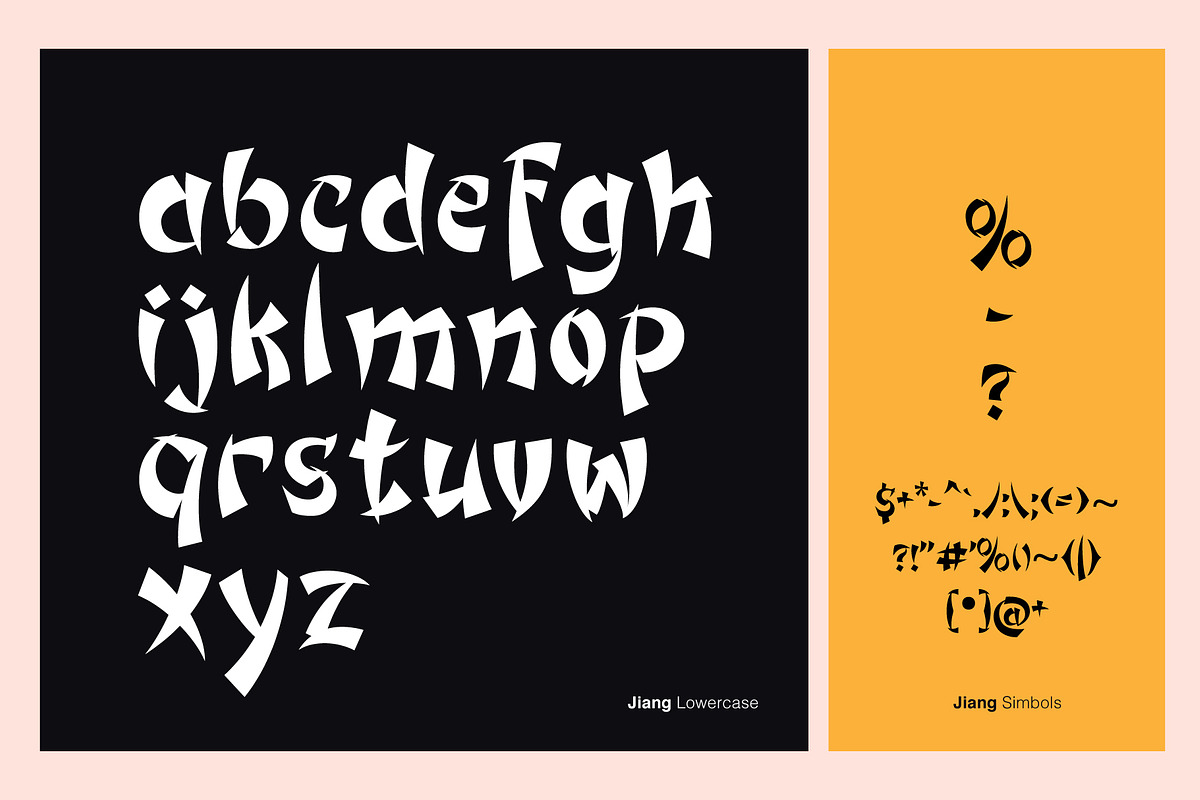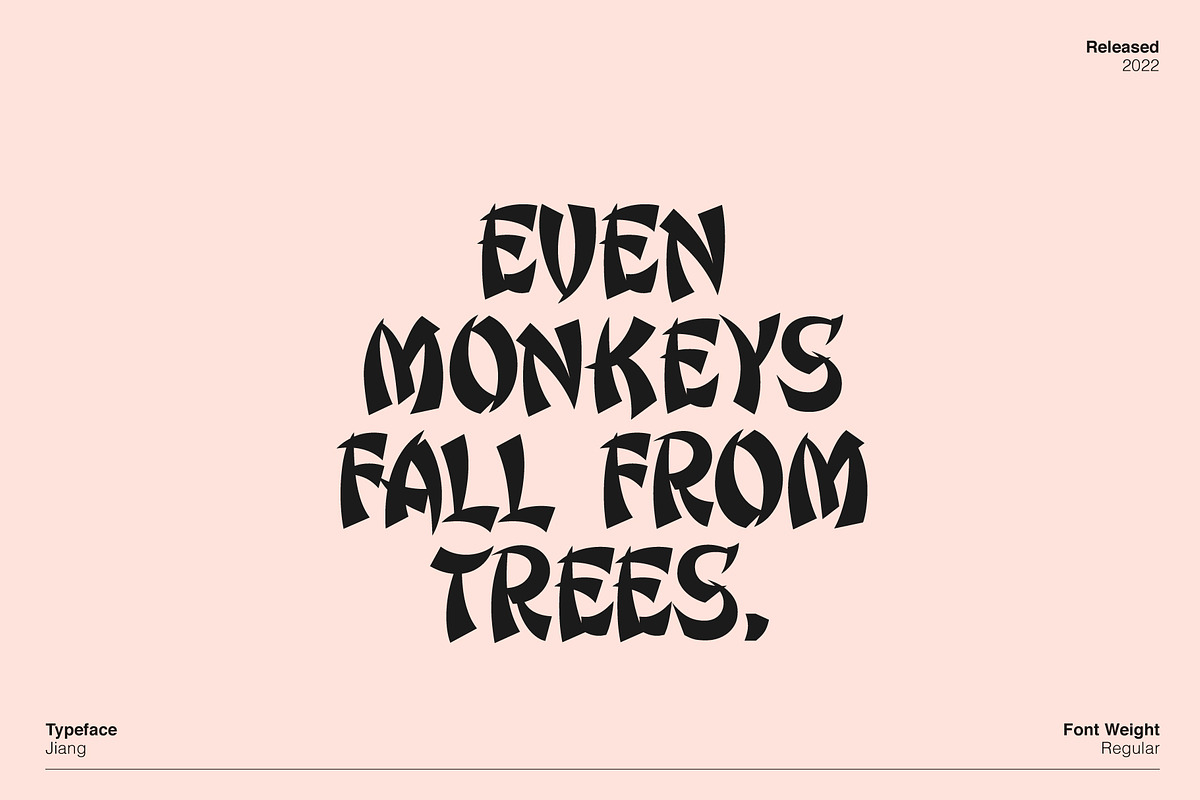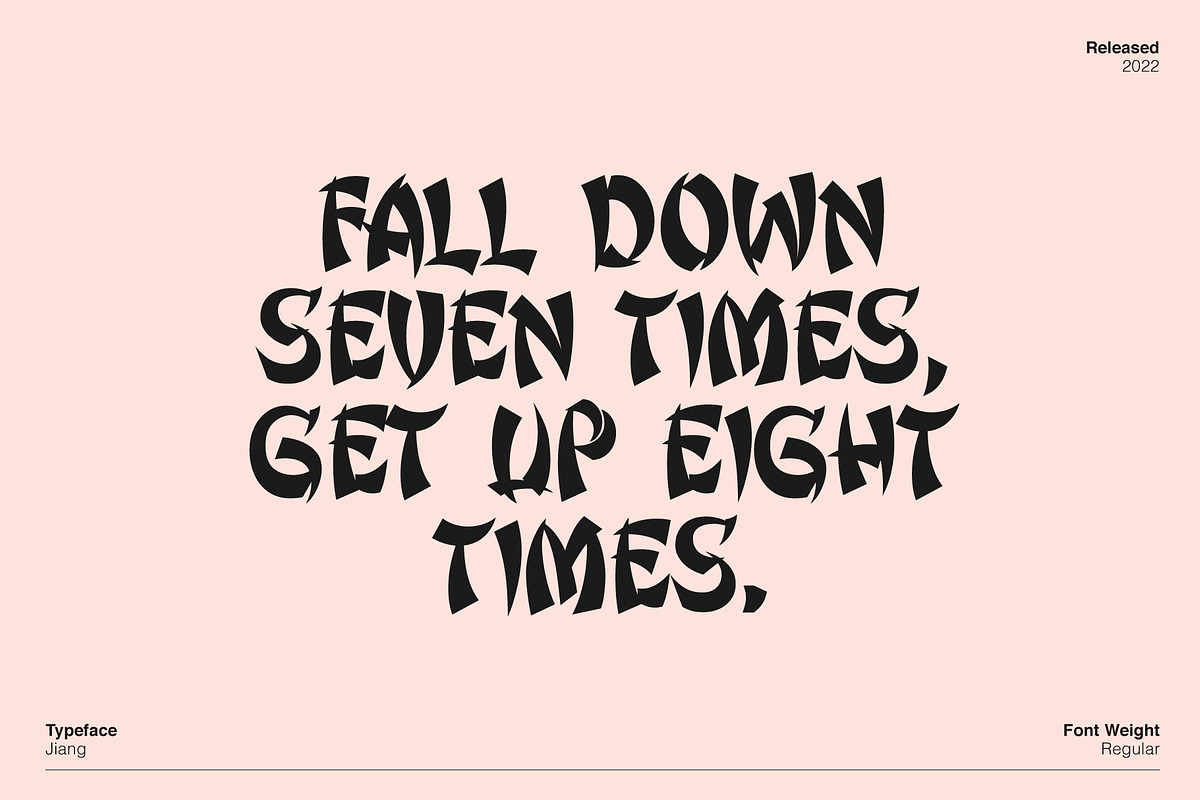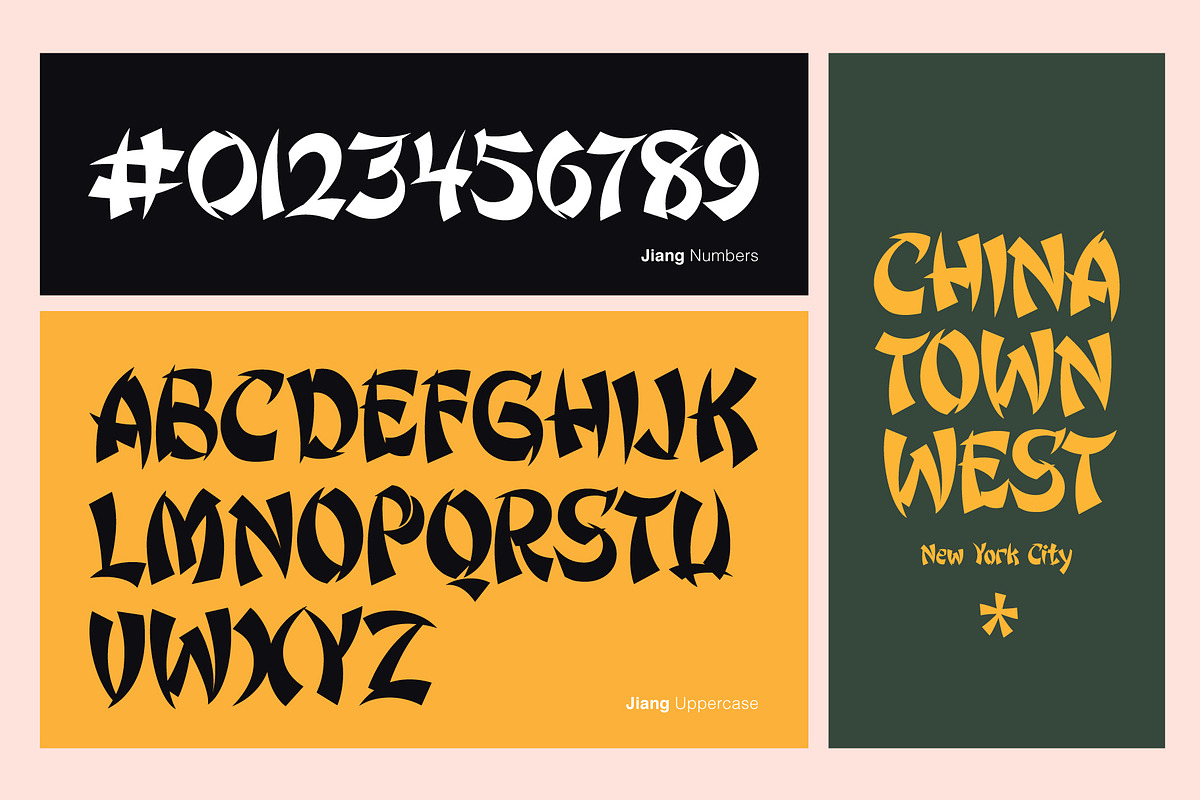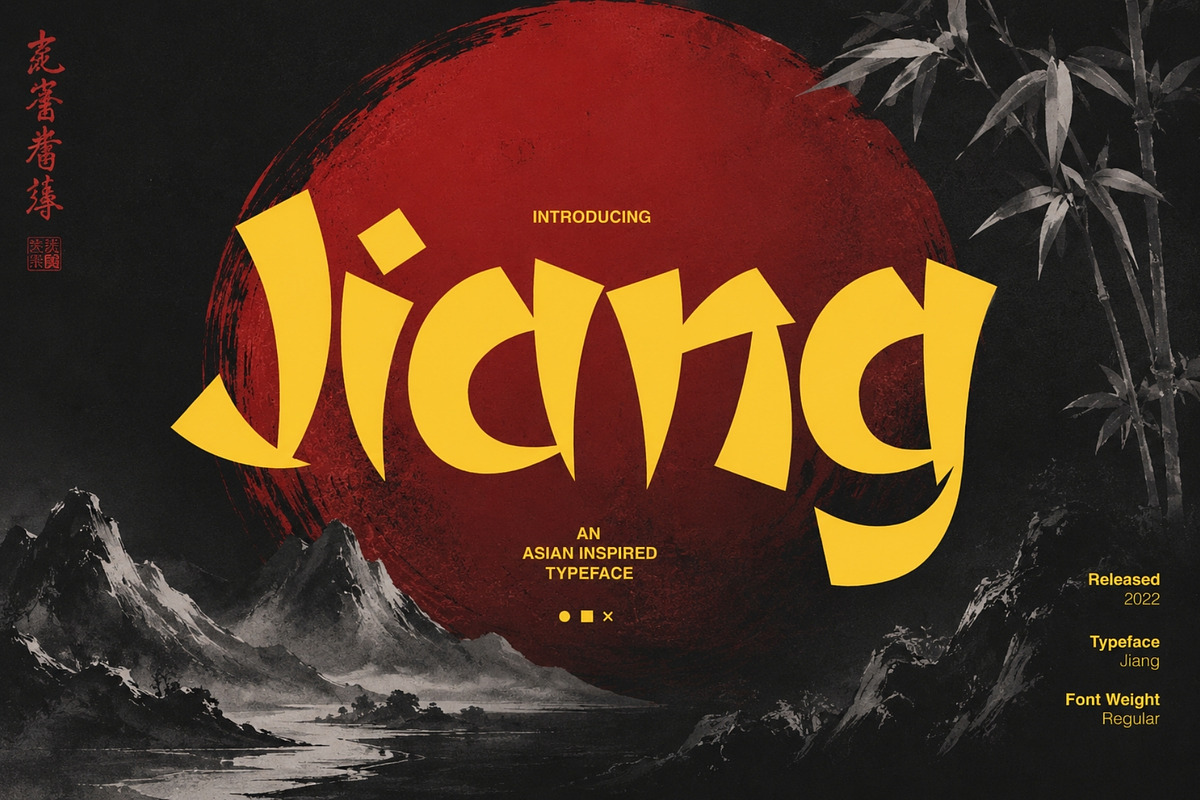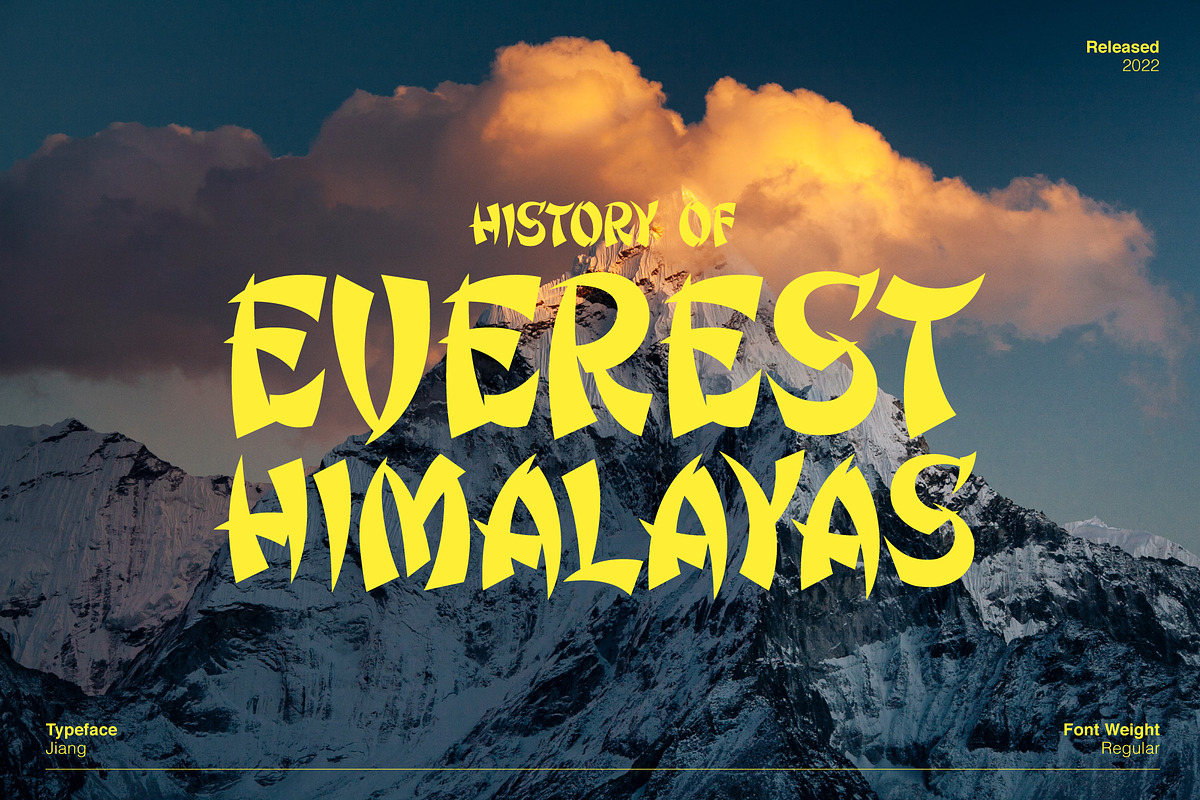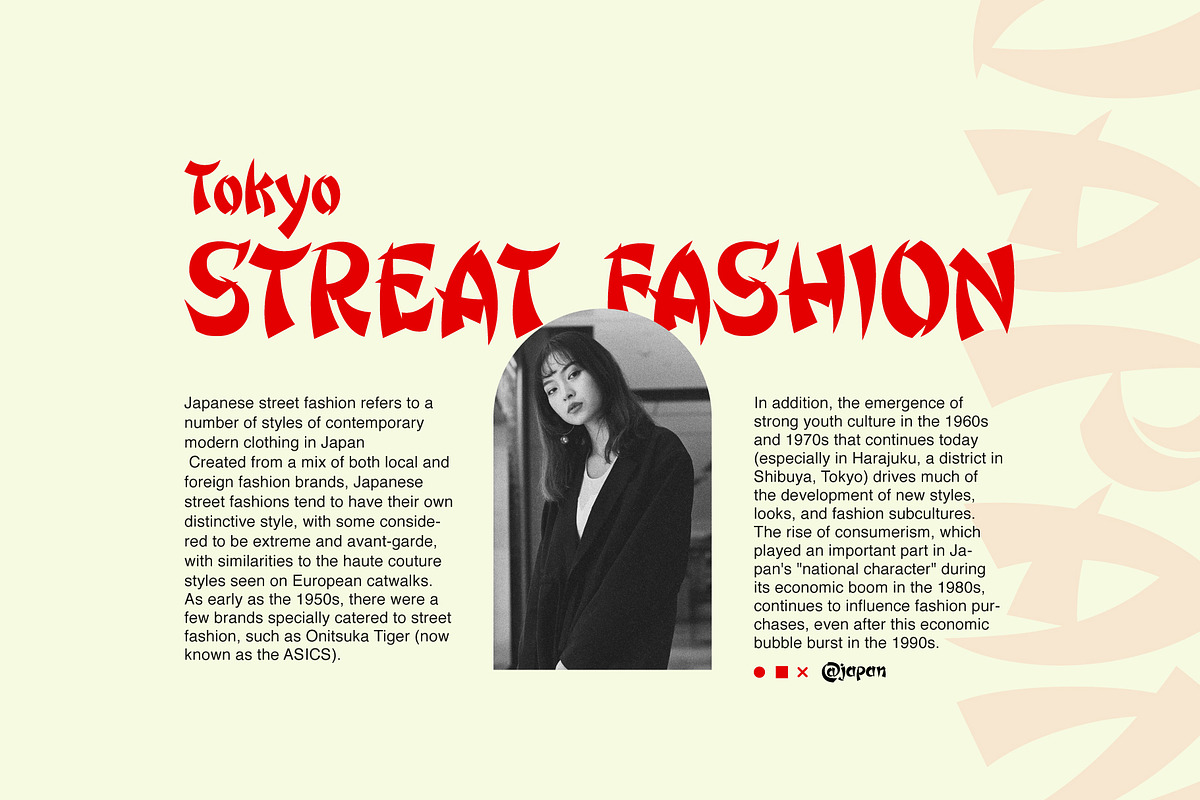
Jiang - Asian Inspired Display
Jiang is an Asian inspired typeface. It' sharp features grabs your attention right away. It's ideal for restaurants, movies, brochure, posters, quotes, Youtube, magazines, and logos. Another important feature is that this font is multilingual. Start utilizing Jiang in your projects to make them stand out. Enjoy!